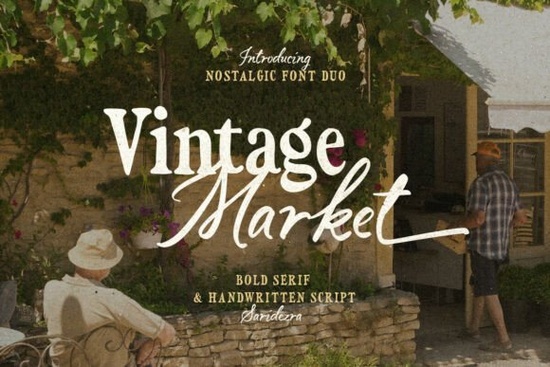
If you're looking for a type pairing that brings a warm, handmade feel to your designs, Vintage Market Font is worth a closer look. This handcrafted font duo combines a bold serif with a flowing handwritten script, making it a solid choice for anyone who works with retro and vintage-style projects whether that's posters, logotypes, quotes, or branding materials.
What Comes in the Vintage Market Font Duo?
The package includes two complementary typefaces:
- A bold serif font sturdy, clean, and easy to read at both large and small sizes.
- A handwritten script font with a natural, flowing style that adds personality and warmth.
Together, they give you a ready-made pairing without the guesswork. You don't need to spend time testing different serif and script combinations these two were designed to work as a set.
The script font also includes ending alternates, which means you can swap out the final letter of a word for a more decorative version. This small detail makes a noticeable difference when you want your lettering to feel more expressive and less repetitive.
What Can You Use This Font Duo For?
This pairing works well across a wide range of design projects. Here are some common uses:
- Print-on-demand designs t-shirts, mugs, tote bags, and greeting cards
- Social media graphics quotes, announcements, and promotional posts
- Logo design especially for brands with a rustic, handmade, or boutique feel
- Wedding and event stationery invitations, menus, and signage
- Blog headers and website graphics
- Wall art and poster prints
If you sell on platforms like Etsy or Redbubble, having a go-to vintage serif font duo like this can speed up your workflow and help your designs stay visually consistent.
Does It Support Multiple Languages?
Yes. The font duo supports multiple languages, which is especially helpful if you sell to international audiences or create content in more than one language. You won't need to switch to a different typeface just because a project requires special characters or accented letters.
Each of these has a different personality, so it depends on the mood you're going for. But if your project specifically calls for that market-style, hand-lettered vintage look, the Vintage Market duo stands out.
Is This Font a Good Fit for Small Businesses?
For small business owners who handle their own branding, this font duo is practical. You can use the bold serif for headings and the script for accents or taglines a combination that looks polished without needing a designer on staff.
It's especially useful for:
- Bakeries, coffee shops, and food brands
- Handmade goods and artisan shops
- Boutique clothing and accessories
- Farm-to-table or organic product brands
The retro feel pairs naturally with brands that want to communicate authenticity, craftsmanship, and a personal touch.
If retro, handcrafted typography fits your design style, this duo is a practical addition to your font library and one you'll likely reach for again and again.